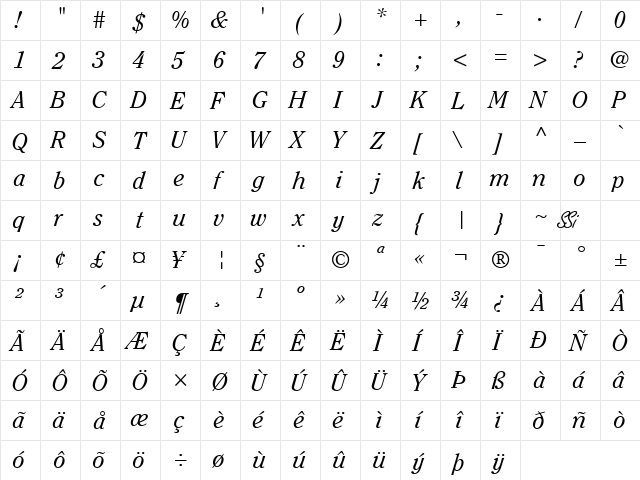
Clearface SSi Italic
Design Context for Clearface SSi Typeface
Clearface SSi offers clean, dependable letterforms without strong stylistic allegiance, making it a practical choice for designers who need flexibility. The dynamic lean of this cut emphasises speed and emphasis in any layout.
Pro Tip: Try Clearface SSi for annotation and caption copy alongside an upright companion — the contrast in angle creates a dynamic but ordered typographic system.